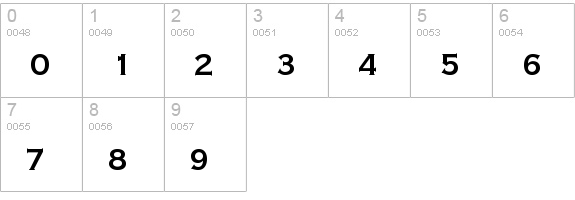
Copperplate Gothic Thirty BC Font Details
Copperplate Gothic Thirty BC is a classic and elegant font that exudes sophistication and style. With its sharp, clean lines and distinctive serifs, this font is perfect for adding a touch of refinement to any design project. The timeless appeal of Copperplate Gothic Thirty BC makes it a versatile choice for both traditional and modern applications. What sets Copperplate Gothic Thirty BC apart is its unique blend of vintage charm and contemporary flair. Whether you're designing a wedding invitation, a business card, or a logo, this font will make a lasting impression. Its bold yet graceful letterforms command attention while conveying a sense of professionalism and class. The best part is that Copperplate Gothic Thirty BC is available for free download at FontsMarket.com. Now you can easily access this premium font without breaking the bank. Don't miss out on the opportunity to enhance your designs with the timeless beauty of Copperplate Gothic Thirty BC. Download it today and elevate your projects to new heights of elegance and sophistication.